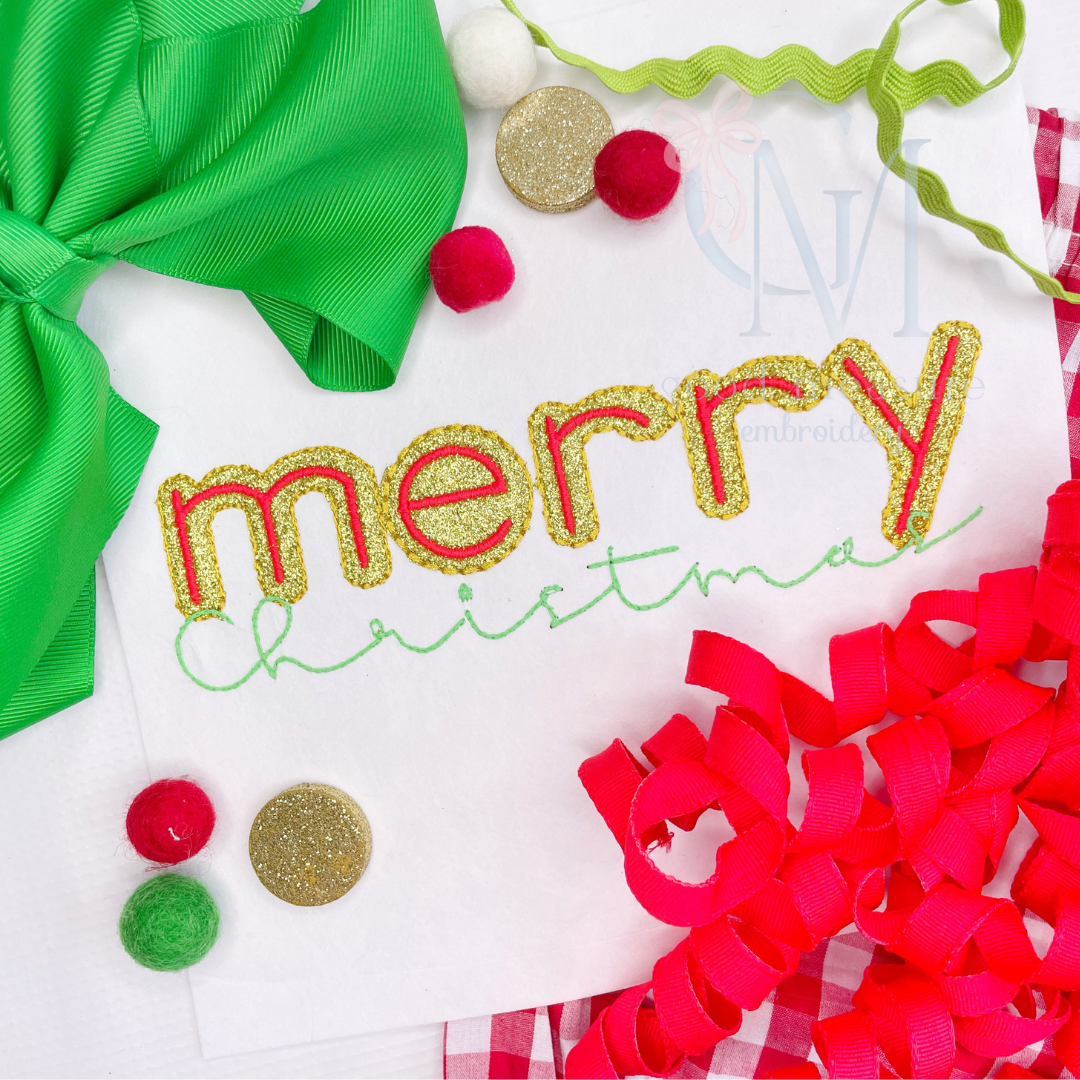
Hand Stitched Applique Font Design
This file includes lowercase letters (a-z) for the hand stitched applique font - a satin font with a applique letter background. Sizes include 1.5, 2, 2.5, and 3 inches tall.